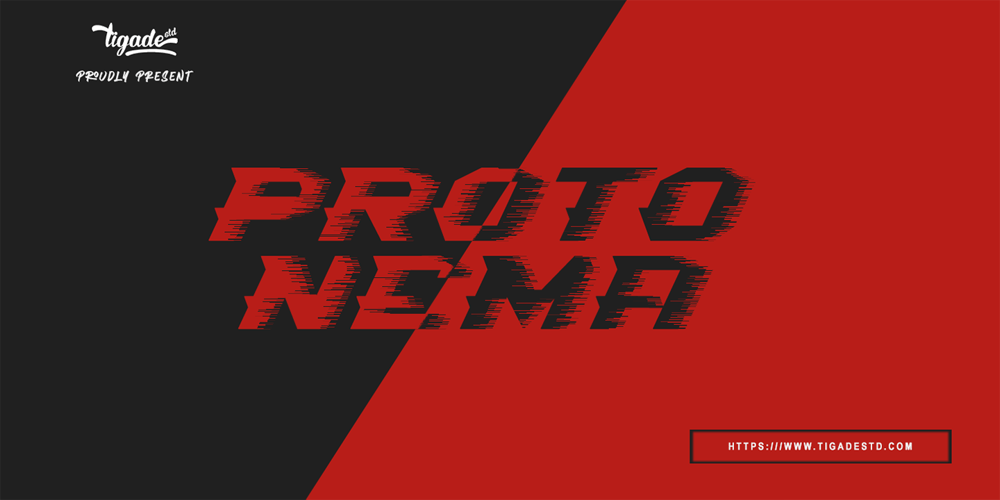
Protonema
Protonema font
Protonema Font Family was designed by Doli Harahap and published by Tigade Std. Protonema contains 2 styles and family package options. Protonema is inspired by a strong and sharp motivational spirit to always look positively for achieving goals. It is suitable for any sports and related theme for widely range of usage. Such as logos, branding, magazine, label and many more